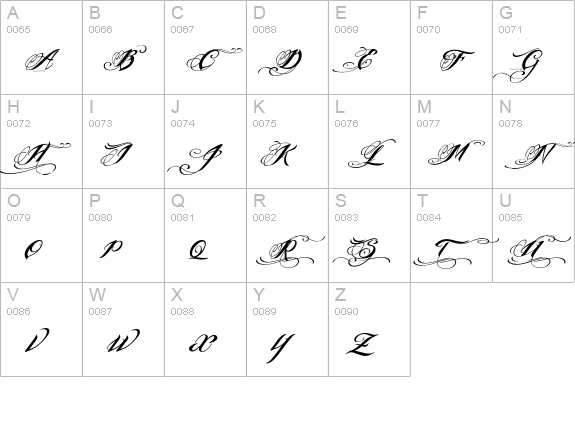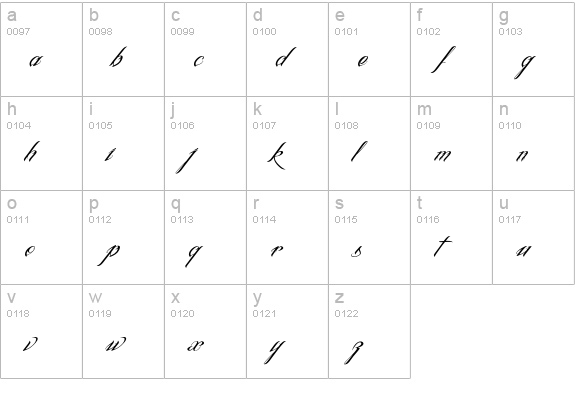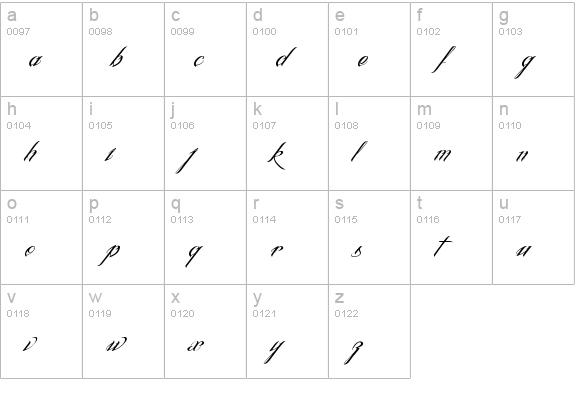
Ink In The Meat Tial Font Details
Introducing the mesmerizing Ink In The Meat Tial font, a stunning typeface that will leave a lasting impression on any creative project. With its intricate details and unique design, this font captures the essence of elegance and sophistication. Ink In The Meat Tial font boasts a perfect balance between boldness and delicacy, making it ideal for a wide range of design applications. Whether you're working on branding, advertising, packaging, or any other creative endeavor, this font will effortlessly elevate your work to new heights. What sets Ink In The Meat Tial font apart is its versatility. Its distinctive characters can be seamlessly integrated into both modern and traditional designs, adding a touch of artistic flair and professionalism. This font is perfect for making a statement, grabbing attention, and leaving a lasting impression on your audience. One of the best features of Ink In The Meat Tial font is that it is freely available to download at FontsMarket.com. This means that you can easily access this exceptional typeface without any hassle. It's a fantastic opportunity to enhance your design toolkit with a font that combines beauty, functionality, and accessibility. With Ink In The Meat Tial font, you have the freedom to explore your creativity and bring your ideas to life. Its timeless elegance and unique charm will make every project stand out from the crowd. So why wait? Discover the beauty and power of Ink In The Meat Tial font today by downloading it for free at FontsMarket.com. Unleash your creativity and create designs that leave a lasting impression.